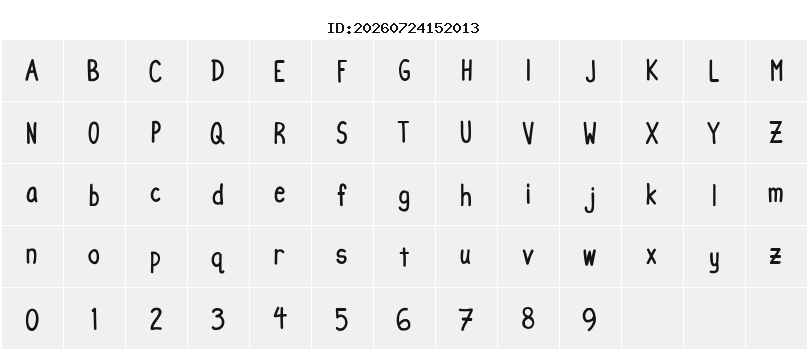
Milk Run Preview
• Font Name: Milk Run
• Full Font Name: Milk Run
• Designer: Font Monkey
• Manufacturer: P.D. Magnus
About Milk Run.ttf
Milk Run.ttf is a modern, elegant sans-serif font designed for ultimate readability and visual harmony. Perfect for branding, headlines, web design, and print materials.